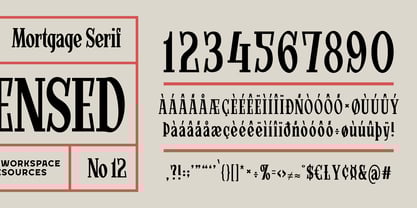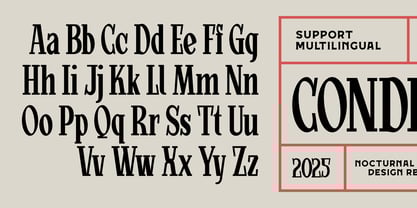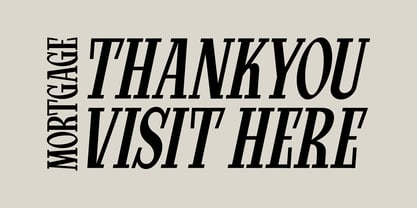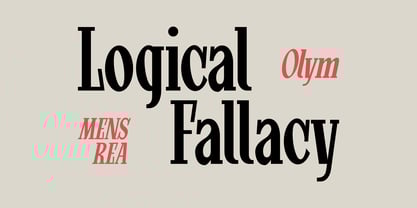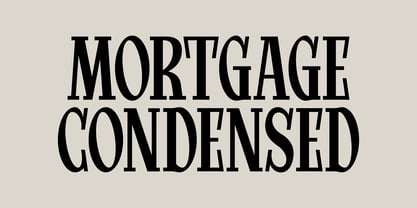
Mortgage
by Nocturnal Workspace
The Mortgage Font Family was designed by Farhan Tirta, Farhan Sudibya and published by Nocturnal Workspace. Mortgage contains 2 styles and family package options. More about this family
* Features : Stylistic Alternates, Contextual Alternates.
* Includes a range of multilingual characters.
Mensrea Olympics Font is suitable typeface for various purposes like logotype, signage, label, poster, dropcap, titles, letterhead, book cover and etc.
Designers: Farhan Tirta, Farhan Sudibya
Foundry: Nocturnal Workspace